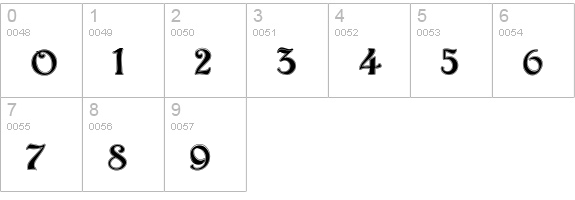
ArgosContour Font Details
ArgosContour is a stylish and modern font that exudes sophistication and elegance. Its unique contours add a touch of artistry to any design, making it perfect for branding, logos, and creative projects. With its sleek lines and attention-grabbing details, ArgosContour is sure to make a statement. What sets ArgosContour apart is not only its visual appeal, but also the fact that it is completely free to download. Yes, you read that right - this stunning font is freely available to download at FontsMarket.com. So go ahead and elevate your designs with the beauty and versatility of ArgosContour.